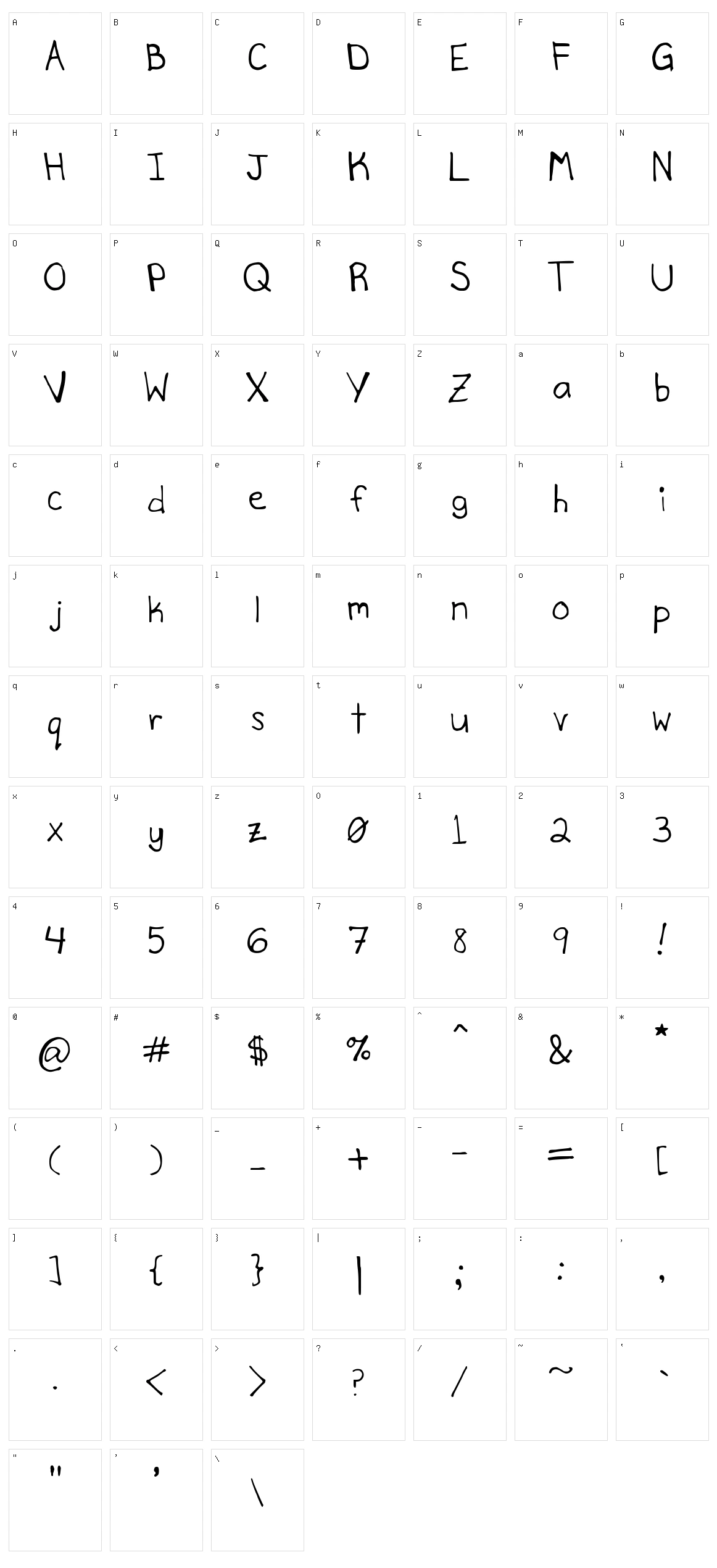
Heya! This is my font, "Secret Slob".
This is a pretty sloppy font. The kerning isn't exactly perfect, and the letters themselves are based on sloppy handwriting to begin with. You may use it, share if you'd like, UNDER THE CONDITIONS THAT WHERE IT IS USED AND SHARED, YOU CREDIT ME & LET ME KNOW, because that's how I roll. Want to use it for a commercial project? Please, contact me.
Also, don't use it for evil. I'm not sure how you could use a font for evil, but if you're using it for something morally questionable, please choose another font. This font doesn't even begin to look suited for evil, anyway. Surely evil is all serifs?